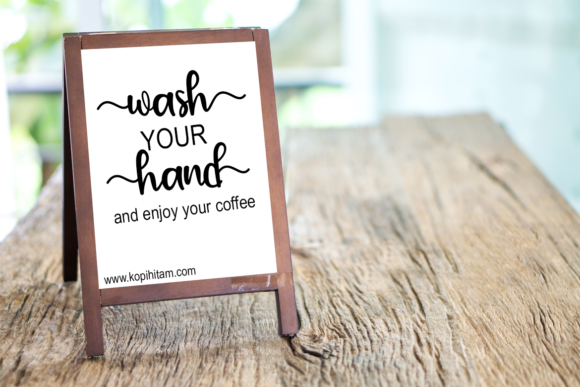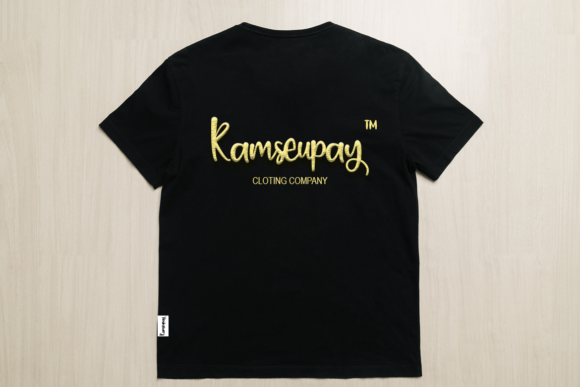
Yellow Fish Font
db-ku.com - Script & Handwritten -- Yellow Fish is a lovely script font featuring charming, playful characters that seem to dance along the baseline. Add this font to your most creative ideas, and notice how it makes them stand out! Yellow Fish is PUA encoded which means you can access all of the amazing glyphs and ligatures with ease!